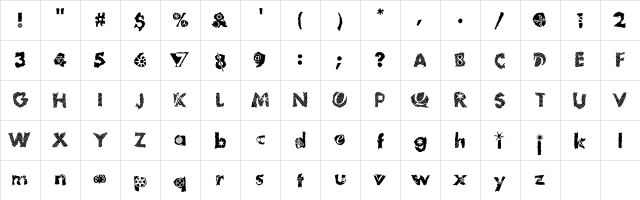
TomFool PlumLoco Free Font
TomFool PlumLoco
Style: PlumLoco
Design Context for TomFool
TomFool is a composed and adaptable typeface that performs quietly and consistently across a wide range of design contexts.